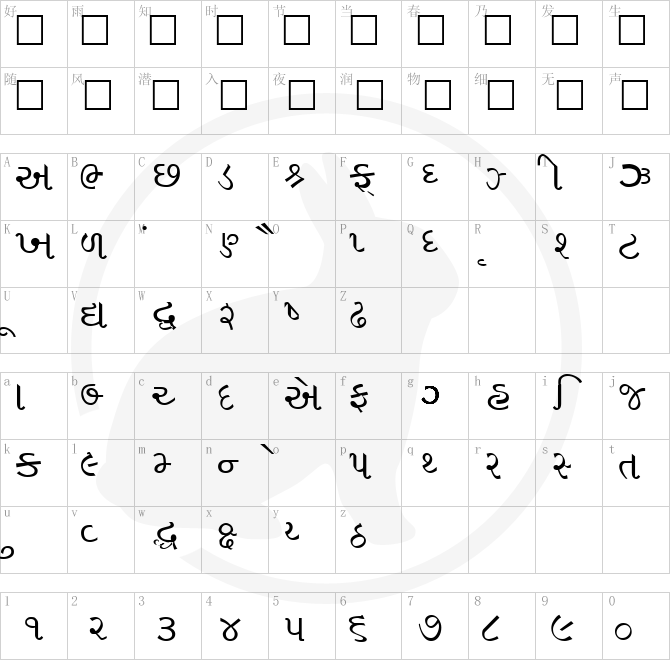
• Font Name:Vakil_01
• Subfamily:Normal
• Subfamily:Shus:Vakil_01
• Full Name:Vakil_01
• Version:Shusha - V 1.5 Based Gujarati Fonts Vakil_01
• PostScript:Vakil_01
• Copyright:Shusha V 1.2 based Gujarati Fonts
Vakil_01.ttf is a very beautiful artistic font, Vakil_01.ttf is widely used in the design and printing of various books and pictures,Vakil_01.ttf has a strong visual impact,Vakil_01.ttf is a commonly used font in newspapers, magazines and books, and is used in posters, e-commerce Poster design, store design, logo design, font design and other fields.Vakil_01.